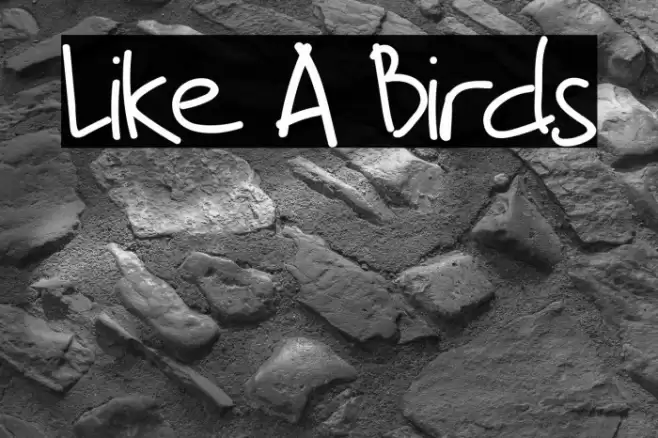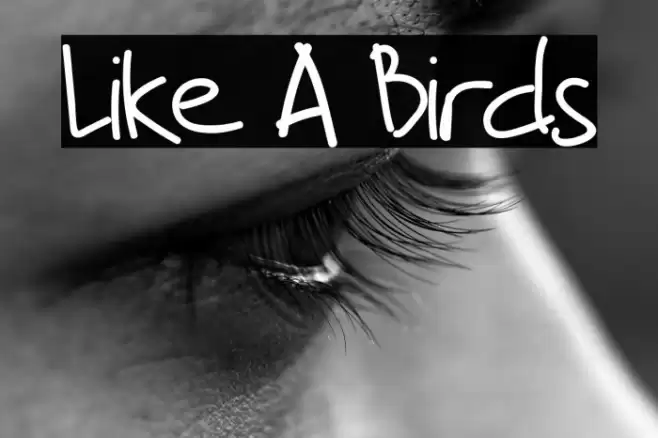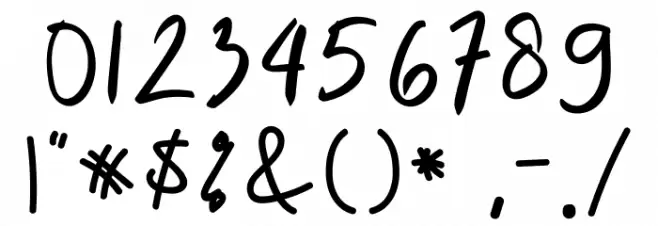
Like A Birds Font
Like A Birds Description
This font features a playful and informal handwritten style, characterized by its loose and flowing letterforms. The strokes are uneven, giving it a casual and spontaneous appearance. The uppercase letters are bold and slightly tilted, while the lowercase letters maintain a consistent height, enhancing readability. Numbers and special characters follow the same whimsical style, making them blend seamlessly with the alphabet. This font exudes a sense of creativity and freedom, perfect for projects that require a personal touch.
A playful, informal handwritten font with loose, flowing letterforms from Regular fonts.
- Proposed Projects: Ideal for greeting cards, children's books, casual branding, and creative social media graphics.
- Overall Style: Casual, Playful
- Use Case: Headlines, Informal text, Creative projects